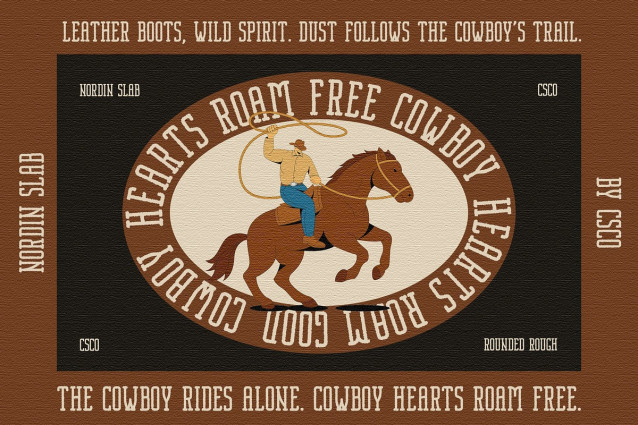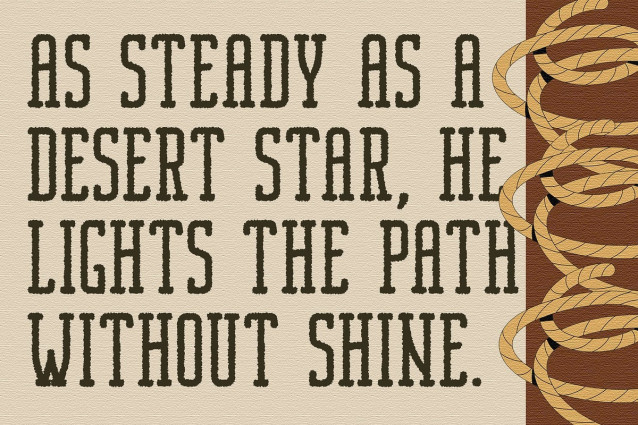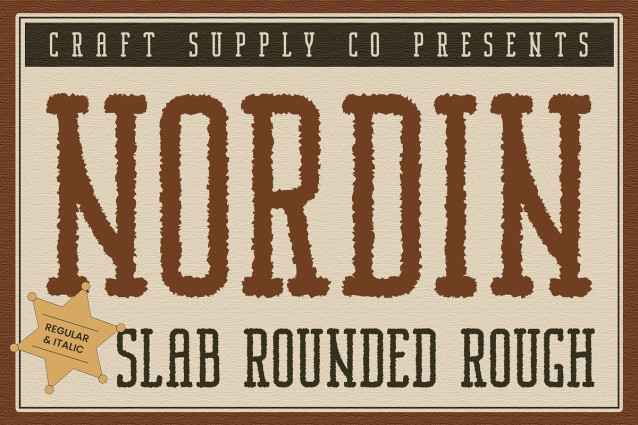
Nordin Slab Rounded Rough Font
Nordin Slab Rounded Rough Font – This is a modern serif font with a strong slab serif structure and a condensed form, offering a compact yet commanding visual presence. Its dense, solid build ensures clarity and impact, making it ideal for headlines and branding where space and strength must work together.
Rounded Design for a Softer, Elegant Appeal The rounded detailing adds a layer of softness to the font’s bold structure, balancing strength with approachability. This gentle curvature introduces a refined and stylish tone, enhancing the overall readability while providing a modern and elegant impression that suits both professional and creative applications.
Rough Effect for Added Texture and Personality With a carefully applied rough effect, this modern slab serif font takes on a more dynamic and organic character. This added texture brings visual depth and a handmade feel, turning the font into a versatile choice for designers who want to incorporate raw, rustic elements without losing a clean, contemporary aesthetic.
Perfect for Bold Branding and Distinctive Design Ideal for logos, posters, packaging, or promotional materials, this font excels in conveying strength with flair. This slab serif font offers a harmonious blend of boldness and style, allowing you to create eye-catching and unique designs that leave a memorable impression.